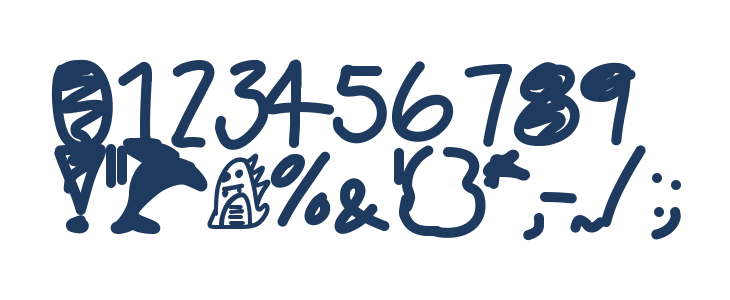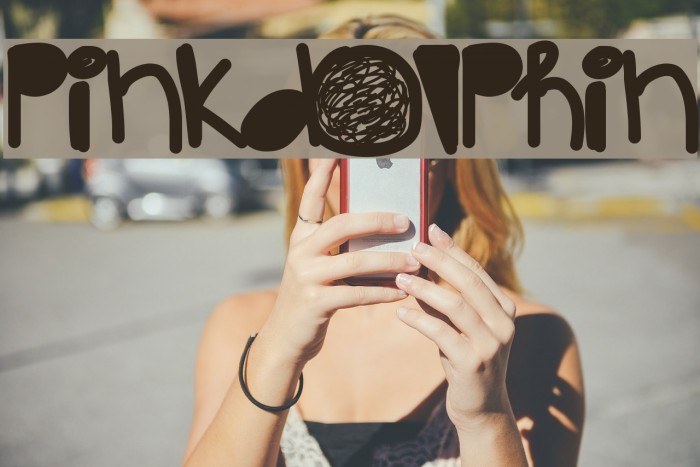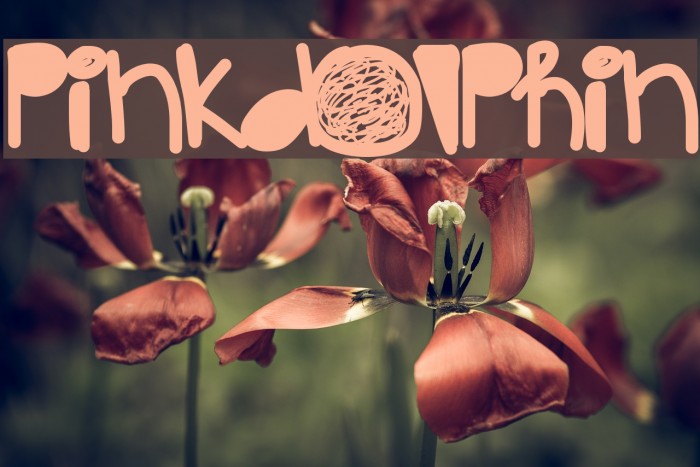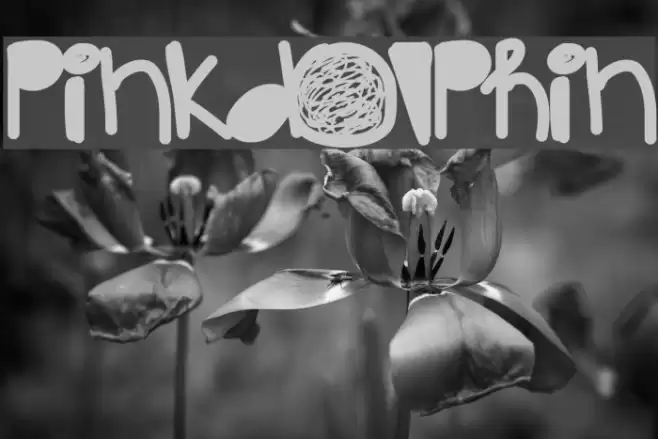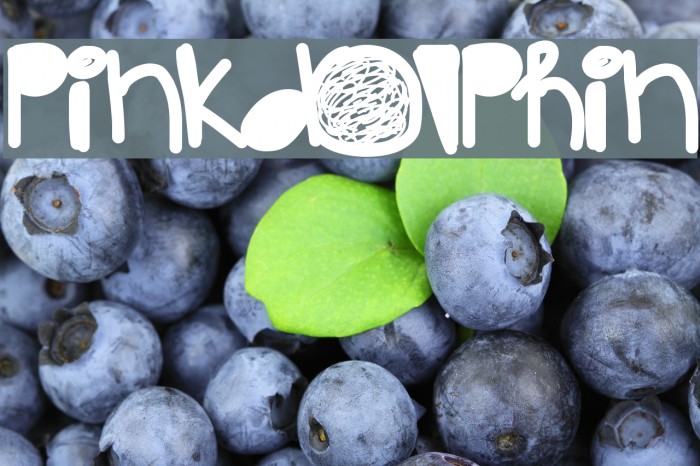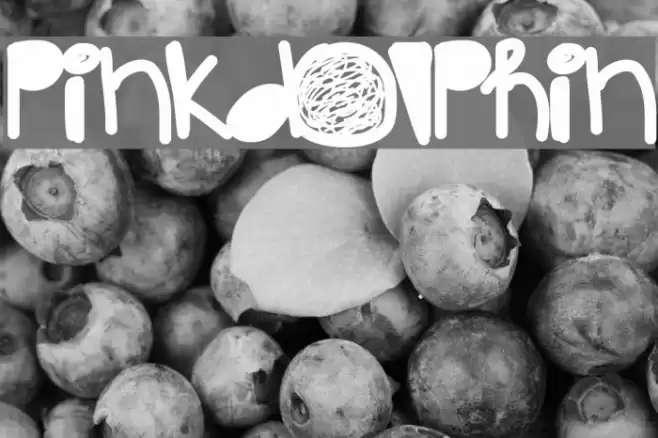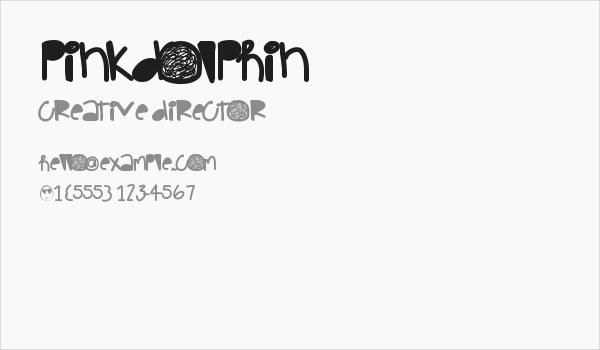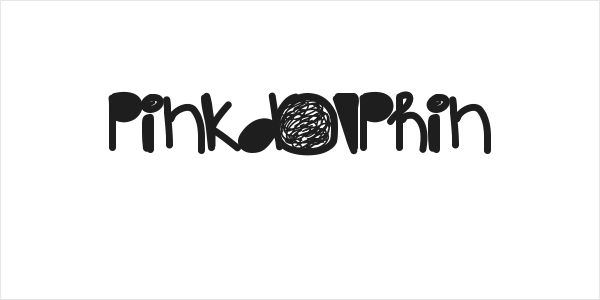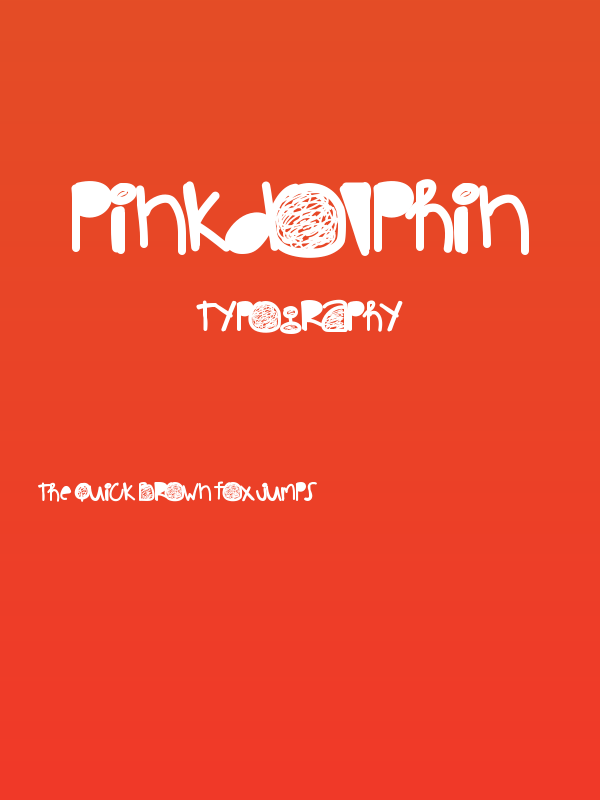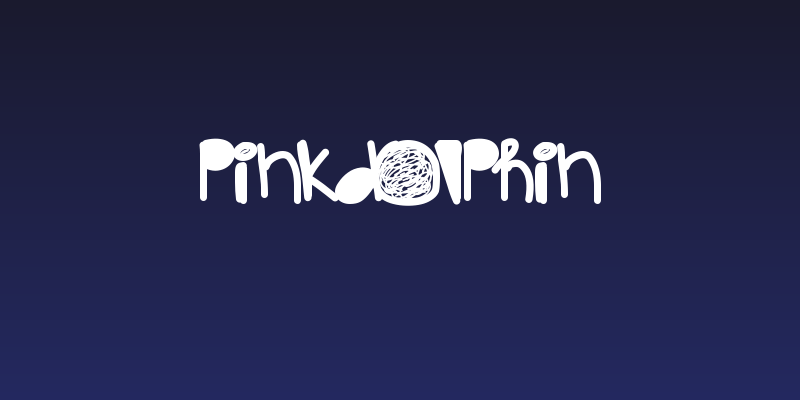
PinkDolphin Font
PinkDolphin Description
This playful and bold font features a hand-drawn, graffiti-like style with exaggerated curves and strokes. The characters are highly expressive, with a mix of thick and thin lines that create a dynamic and energetic feel. The uppercase and lowercase letters maintain a consistent style, while the numbers and special characters add a whimsical touch. The font's unique personality makes it stand out, with each character appearing as if it has been sketched with a marker. The overall design is informal and artistic, perfect for projects that require a creative and youthful vibe.
| Use Case | Logos, Posters, Creative projects |
| Proposed Projects | Ideal for street art designs, children's book covers, playful branding, and creative posters. |